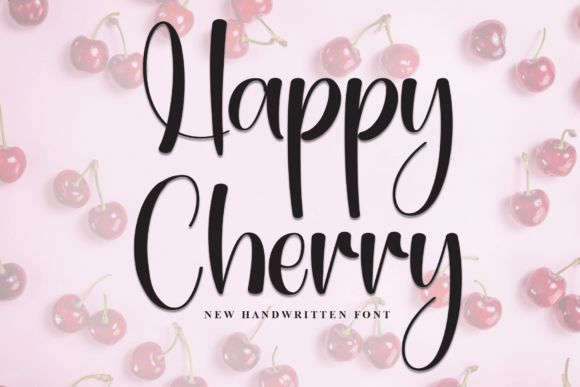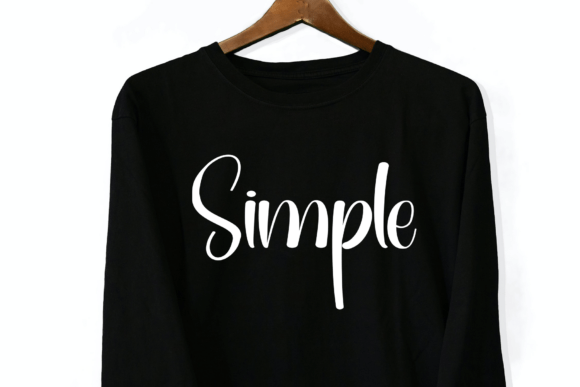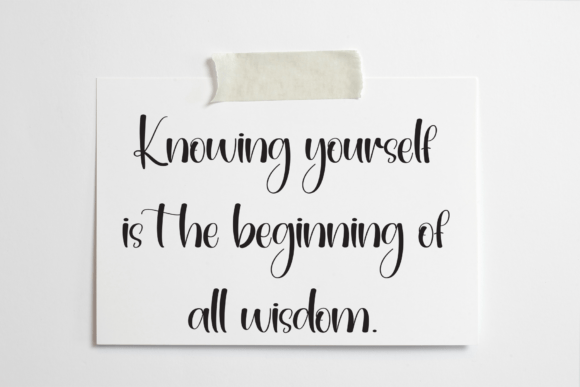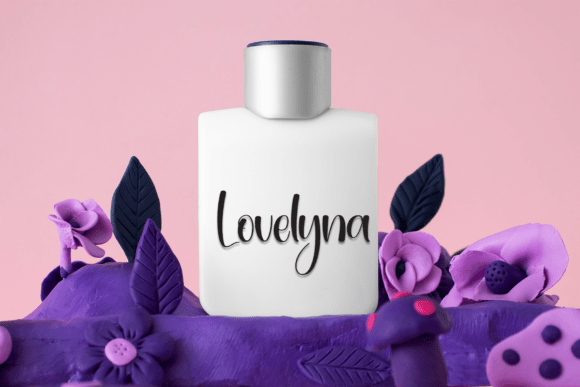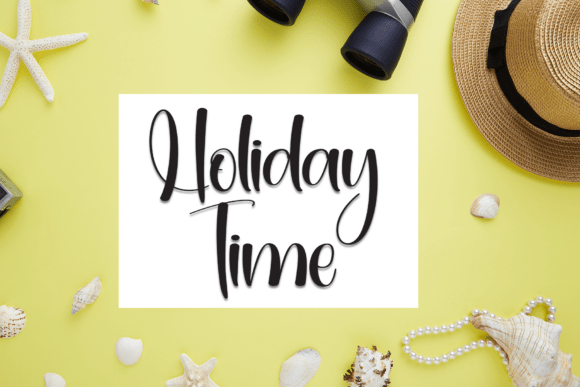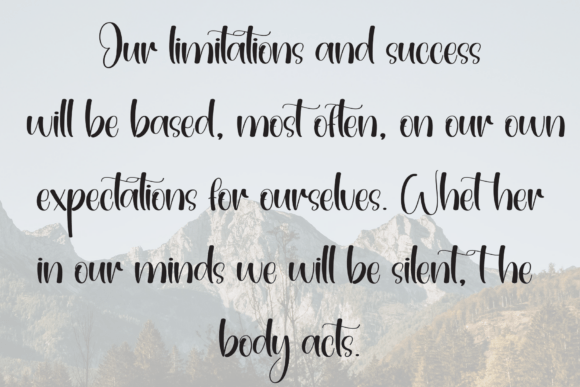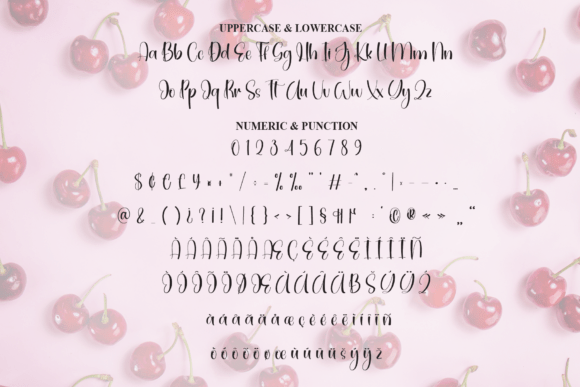
Unlock the Joy of Handwritten Design with Happy Cherry Font
As a designer, there’s nothing quite like the thrill of creating something from scratch. The blank page stares back at you, waiting for your imagination to come alive. You’re brainstorming ideas, experimenting with colors, and searching for the perfect font to bring it all together. And then, it happens – you stumble upon the perfect match, and your design transforms into a work of art.
That’s where Happy Cherry Font comes in, a delightful handwritten font that adds a touch of elegance and playfulness to your creative work. With its smooth curves and tall letterforms, Happy Cherry Font is perfect for branding, logos, greeting cards, packaging, and social media posts. Whether you’re designing something sweet or sophisticated, this font adds a personal and joyful touch that’s sure to make your designs stand out.
As a designer, you’re always on the lookout for that special something that sets your work apart. Happy Cherry Font is a valuable addition to your toolkit, offering a fresh and unique perspective that’s sure to delight your clients and customers alike.
Key Features of Happy Cherry Font
- Unique Characteristics: The Happy Cherry Font features a playful and whimsical design with rounded shapes and bold lines, making it perfect for creating eye-catching headlines and titles.
- Font Style: The font is available in 3 different styles: Regular, Bold, and Italic, providing users with flexibility and versatility in their design choices.
Happy Cherry Font Review
Overall, I’d say Happy Cherry Font is a playful and vibrant font that’s perfect for adding a touch of whimsy to your designs. ✨ The rounded edges and cheerful feel make it a great choice for kids’ brands, food labels, or any project that needs a fun and approachable vibe.
- ✨ Unique and distinctive style that sets it apart from more common fonts
- ✨ Great for creating attention-grabbing headlines or titles
- ✨ Comes in a variety of weights and styles to suit different design needs
- ⚠️ May not be suitable for formal or professional designs, as it can come across as too playful or childish
- ⚠️ Some characters may not be as refined or detailed as others, which can be noticeable in close-up views
- ⚠️ Limited language support, which may limit its use for international designs
Overall, I think Happy Cherry Font is a great choice for designers looking to add a bit of personality to their projects. While it may not be the best fit for every design, it’s definitely worth considering for the right projects.
Happy Cherry Font Practical Application Guide
Getting the Most Out of Happy Cherry Font
To get the most out of Happy Cherry Font, use it for:
- Designing playful and whimsical graphics.
- Creating eye-catching headlines and titles.
- Adding a touch of fun and personality to your designs.
Happy Cherry Font is commonly used for:
- Children’s book covers and illustrations.
- Party invitations and decorations.
Alternative Fonts to Happy Cherry Font
Great Vibes is a modern, cursive script font perfect for adding a touch of elegance and sophistication to your designs. It’s ideal for use in invitations, greeting cards, and other promotional materials where a friendly and approachable tone is desired.
Compared to Happy Cherry Font, Great Vibes has a more refined and polished look, making it suitable for a wider range of applications. While Happy Cherry Font is more playful and energetic, Great Vibes is more versatile and adaptable.
Carolyna Pro is a beautiful, handwritten font that exudes warmth and charm. It’s perfect for use in branding, packaging, and advertising materials where a personal and emotional connection is desired.